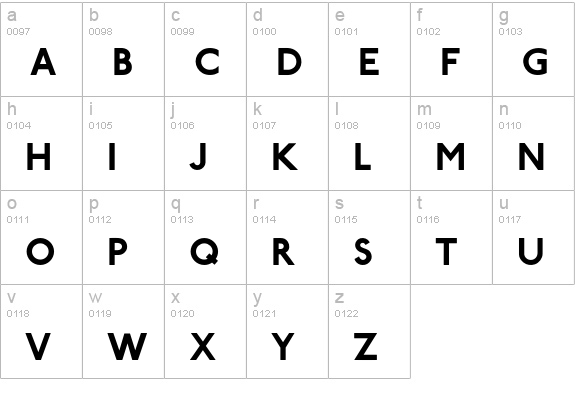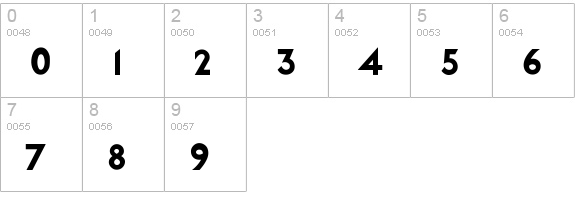
P22UndergroundBold Font Details
P22UndergroundBold font is a modern and stylish typeface that exudes confidence and sophistication. With its bold and strong letterforms, this font is perfect for creating eye-catching headlines, titles, and logos that demand attention. Designed with the inspiration of the iconic London Underground signage, P22UndergroundBold font captures the essence of urbanity and efficiency. Its clean lines and geometric shapes make it easily legible even at smaller sizes, ensuring readability in various design projects. One of the most appealing aspects of P22UndergroundBold font is that it is freely available to download at FontsMarket.com. This means that designers, creatives, and enthusiasts alike can access this remarkable font without any cost. It offers the opportunity to add a touch of elegance and professionalism to any project, without breaking the bank. Whether you are designing a poster, website, or branding materials, P22UndergroundBold font will elevate your work to new heights. It allows you to express your creativity and convey your message with clarity and impact. Its versatility makes it suitable for a wide range of applications, from corporate designs to artistic endeavors. The P22UndergroundBold font is a must-have in any designer's toolkit. Its timeless appeal, combined with its accessibility, makes it a valuable asset for both professionals and amateurs. So why wait? Download P22UndergroundBold font for free at FontsMarket.com and unleash your creativity today.